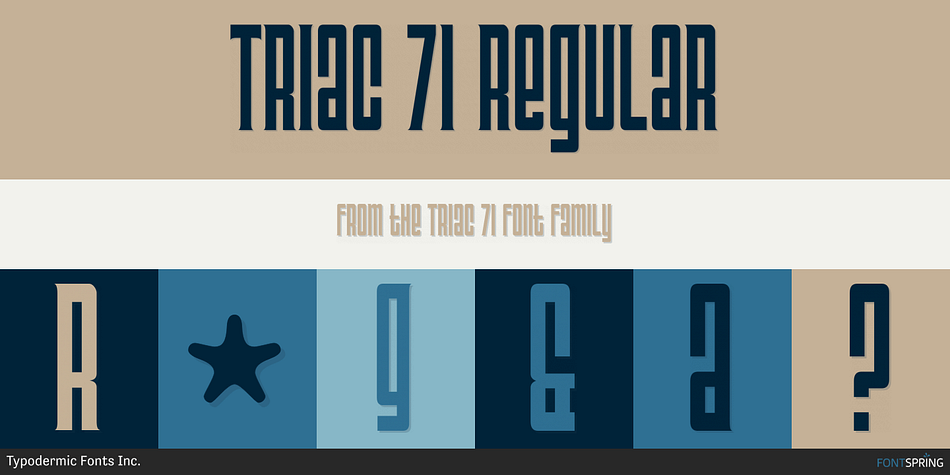
Triac 71 is a display sans font published by Typodermic Fonts Inc.
Triac 71 Regular
Triac 71 is a stylish display typeface inspired by the modular aesthetics of jazz album covers from the 1960s. Allow its smooth look and dynamic letterforms to infuse your message with sardonic wit and essential self-pity. Most Latin-based European writing systems are supported, including the following languages. Afaan Oromo, Afar, Afrikaans, Albanian, Alsatian, Aromanian, Aymara, Bashkir (Latin), Basque, Belarusian (Latin), Bemba, Bikol, Bosnian, Breton, Cape Verdean, Creole, Catalan, Cebuano, Chamorro, Chavacano, Chichewa, Crimean Tatar (Latin), Croatian, Czech, Danish, Dawan, Dholuo, Dutch, English, Estonian, Faroese, Fijian, Filipino, Finnish, French, Frisian, Friulian, Gagauz (Latin), Galician, Ganda, Genoese, German, Greenlandic, Guadeloupean Creole, Haitian Creole, Hawaiian, Hiligaynon, Hungarian, Icelandic, Ilocano, Indonesian, Irish, Italian, Jamaican, Kaqchikel, Karakalpak (Latin), Kashubian, Kikongo, Kinyarwanda, Kirundi, Kurdish (Latin), Latvian, Lithuanian, Lombard, Low Saxon, Luxembourgish, Maasai, Makhuwa, Malay, Maltese, Māori, Moldovan, Montenegrin, Ndebele, Neapolitan, Norwegian, Novial, Occitan, Ossetian (Latin), Papiamento, Piedmontese, Polish, Portuguese, Quechua, Rarotongan, Romanian, Romansh, Sami, Sango, Saramaccan, Sardinian, Scottish Gaelic, Serbian (Latin), Shona, Sicilian, Silesian, Slovak, Slovenian, Somali, Sorbian, Sotho, Spanish, Swahili, Swazi, Swedish, Tagalog, Tahitian, Tetum, Tongan, Tshiluba, Tsonga, Tswana, Tumbuka, Turkish, Turkmen (Latin), Tuvaluan, Uzbek (Latin), Venetian, Vepsian, Võro, Walloon, Waray-Waray, Wayuu, Welsh, Wolof, Xhosa, Yapese, Zapotec Zulu and Zuni.